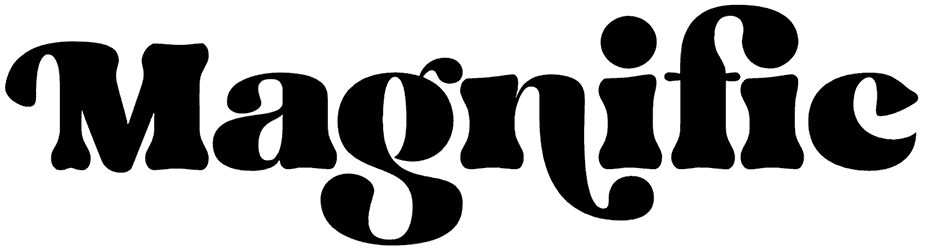
Magnific Font
First things first, there’s no number included in Magnific, so if you’re sure you’re going to need those, you can just move on already to our other retro fonts. However, if you find it a bit difficult to let go of its friendly, magical feel, it’s totally understandable.